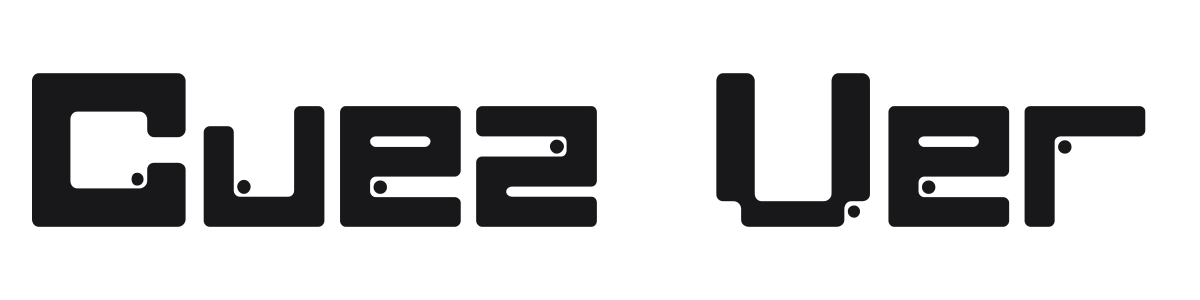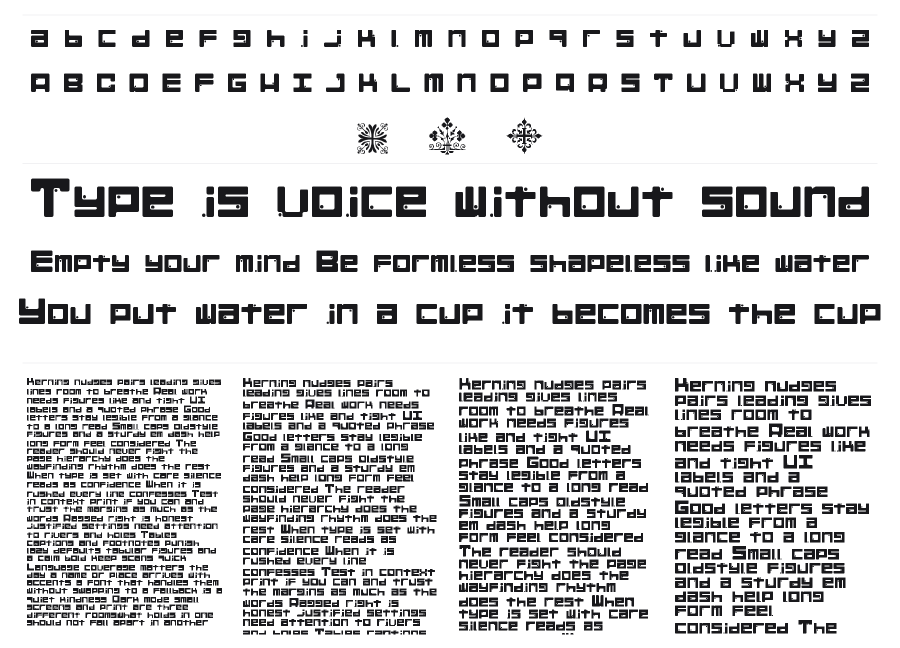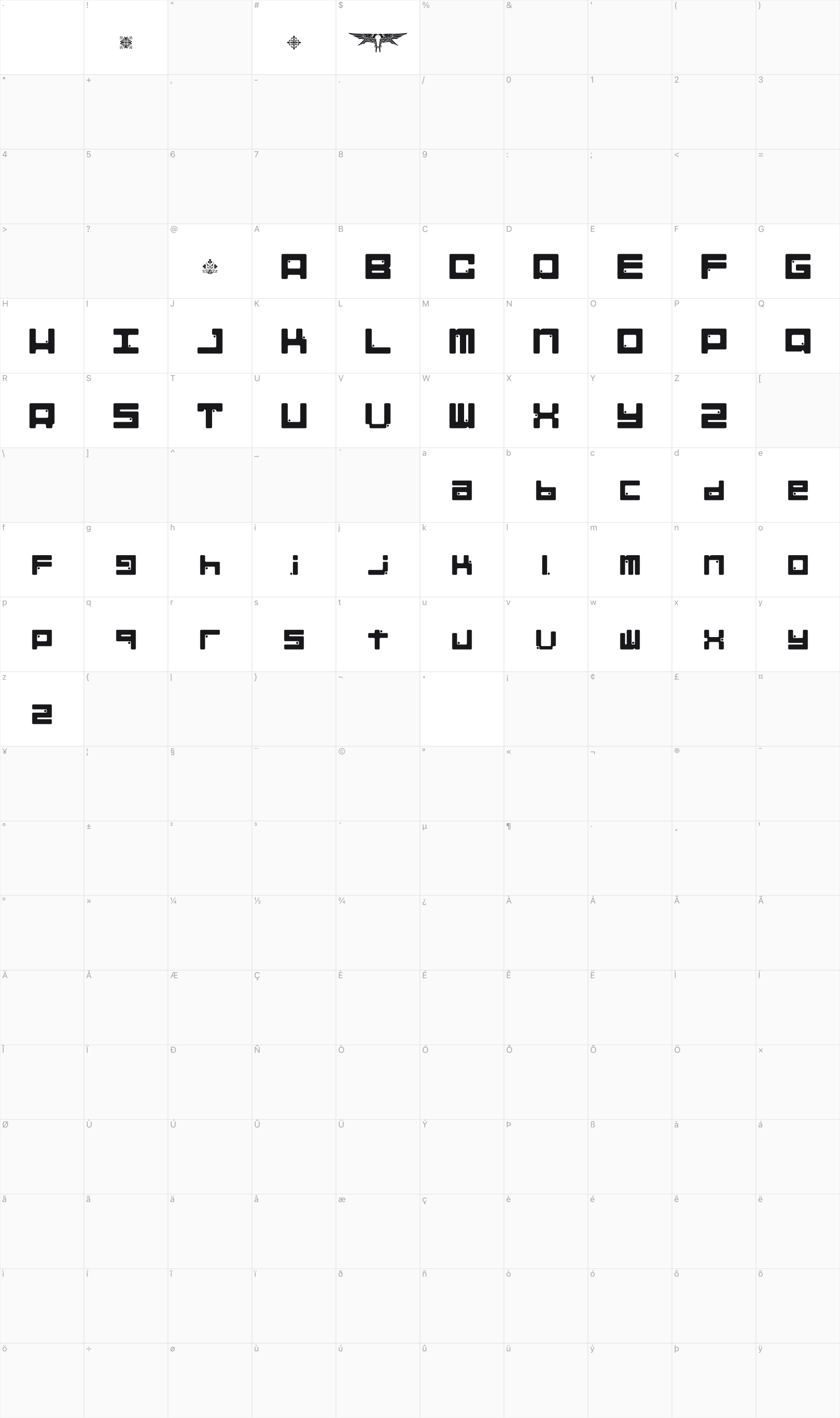
Cuez Ver5
Cuez Ver5 is a bold square techno font built from thick rounded rectangular modules with small circular notches at stroke joints. It reads as chunky and digital, somewhere between a retro game UI and a futuristic logo treatment. The circular cutout detail is the defining touch that keeps it from feeling like a generic blocky sans.